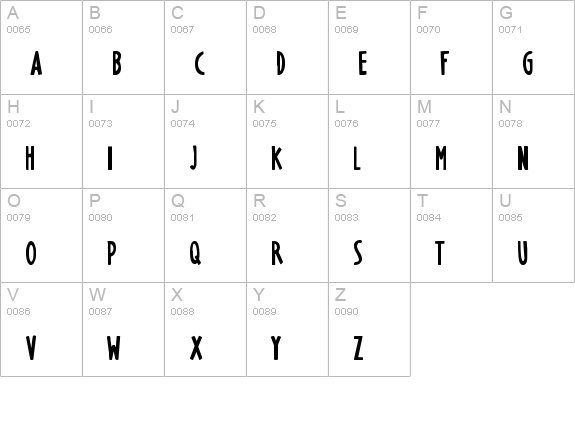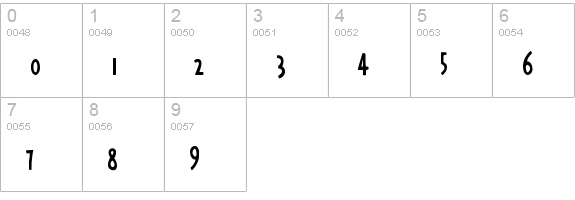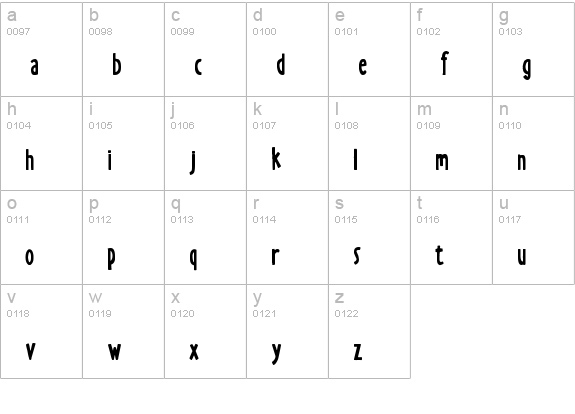
Markus the Cow Font Details
Introducing Markus the Cow, a delightful and whimsical font that is sure to bring a smile to your face. This one-of-a-kind typeface captures the essence of a playful cow, with its rounded edges and charmingly quirky letterforms. Every character is carefully crafted to embody the character and charm of a lovable bovine friend. Markus the Cow font is not only visually appealing, but it also offers versatility in its usage. Whether you are designing a children's book, creating eye-catching signage, or adding a touch of fun to your social media posts, this font is sure to stand out and capture the attention of your audience. One of the best things about Markus the Cow font is that it is available for free download at FontsMarket.com. Yes, you read that right - this unique and captivating font can be yours without spending a dime! Simply visit FontsMarket.com and unleash your creativity with this freely available gem. With Markus the Cow font, you can add a touch of whimsy and playfulness to your designs, making them truly unforgettable. So why wait? Download Markus the Cow font today and let your imagination run wild with this delightful and freely available typeface from FontsMarket.com.